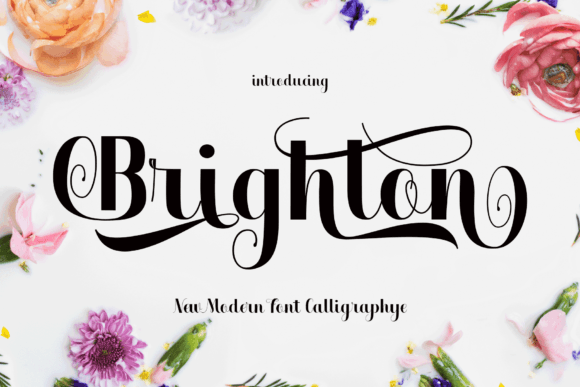
The Ultimate Guide to Brighton Font: A Handmade Script Font for Creatives
I’ll never forget the time I was working on a wedding invitation project, and my client asked me to create a custom logo that would match the tone of their special day. I spent hours scouring the internet for the perfect font, but nothing seemed quite right. That’s when I stumbled upon Brighton Font, a beautiful handmade script font that stole my heart. In this article, I’ll share my love for Brighton Font, its features, and how to make the most of it in your designs.
What is Brighton Font?
Brighton Font is a stunning handmade script font created in a freestyle manner, perfect for crafty individuals, designers, and anyone looking for a unique touch in their work. This font is incredibly versatile and can be used for a wide range of purposes, including:
- Logos
- Wedding invitations
- Headings
- T-shirts
- Letterheads
- Signage
- Labels
- News
- Posters
- Badges
What I Love About Brighton Font ✨
- 💕 Unique and handmade: Brighton Font has a one-of-a-kind, organic feel that sets it apart from more traditional fonts.
- ✅ PUA encoded: This font is PUA encoded, making it easy to access all the glyphs and swashes.
- 🎨 Highly versatile: Brighton Font can be used for a wide range of projects, from logos to posters.
While Brighton Font is an amazing font, there are a few things to keep in mind:
- ⚠️ Legibility at small sizes: Like many script fonts, Brighton Font can be tricky to read at very small sizes.
- ⚠️ Limited use in body text: Due to its decorative nature, Brighton Font is best suited for headings and titles rather than body text.
The Story Behind Brighton Font
Brighton Font was created by a talented type designer who wanted to craft a unique, handmade script font that would inspire creatives to produce stunning work. With its freestyle approach and PUA encoding, Brighton Font has become a favorite among designers, crafters, and hobbyists.
Q: What is PUA encoding, and how does it benefit Brighton Font?
A: PUA (Private Use Area) encoding allows font creators to include additional characters, glyphs, and swashes that can be easily accessed in design software. In the case of Brighton Font, PUA encoding provides users with a wide range of creative options.
Q: Is Brighton Font suitable for body text?
A: While Brighton Font is a beautiful font, it’s best suited for headings and titles due to its decorative nature. For body text, consider using a more legible font.